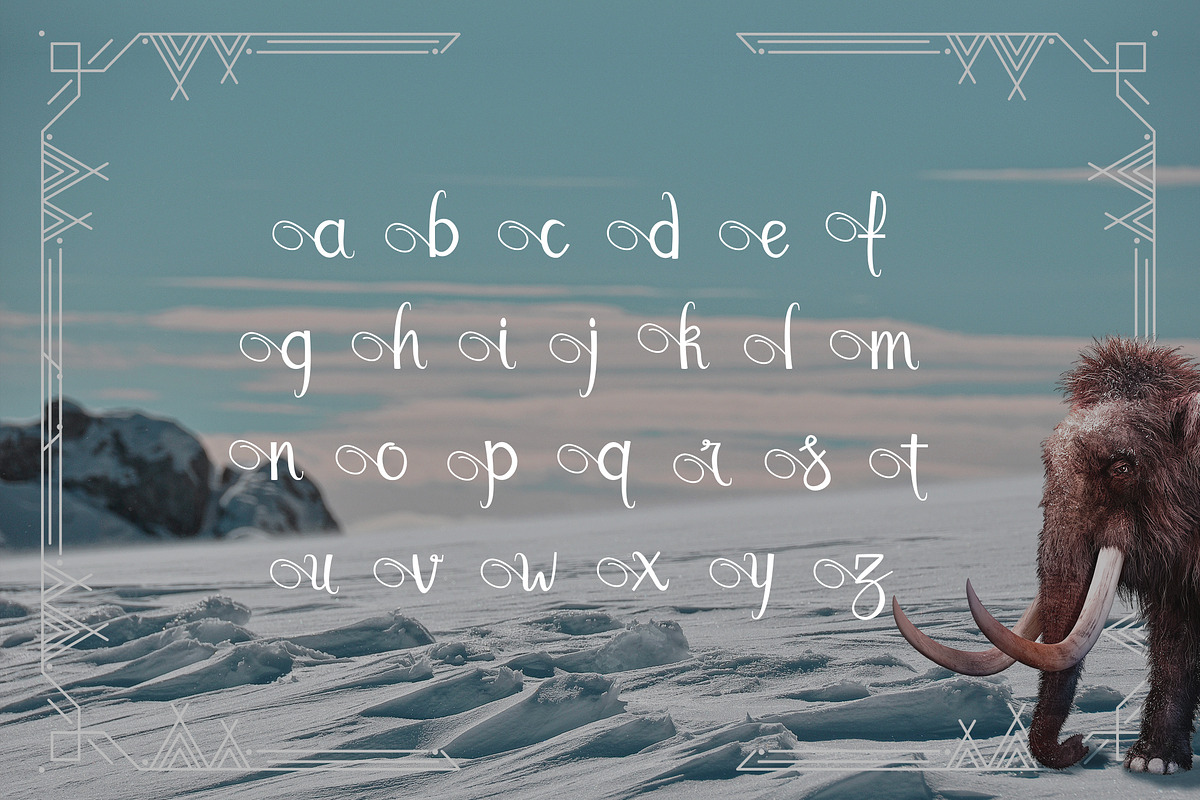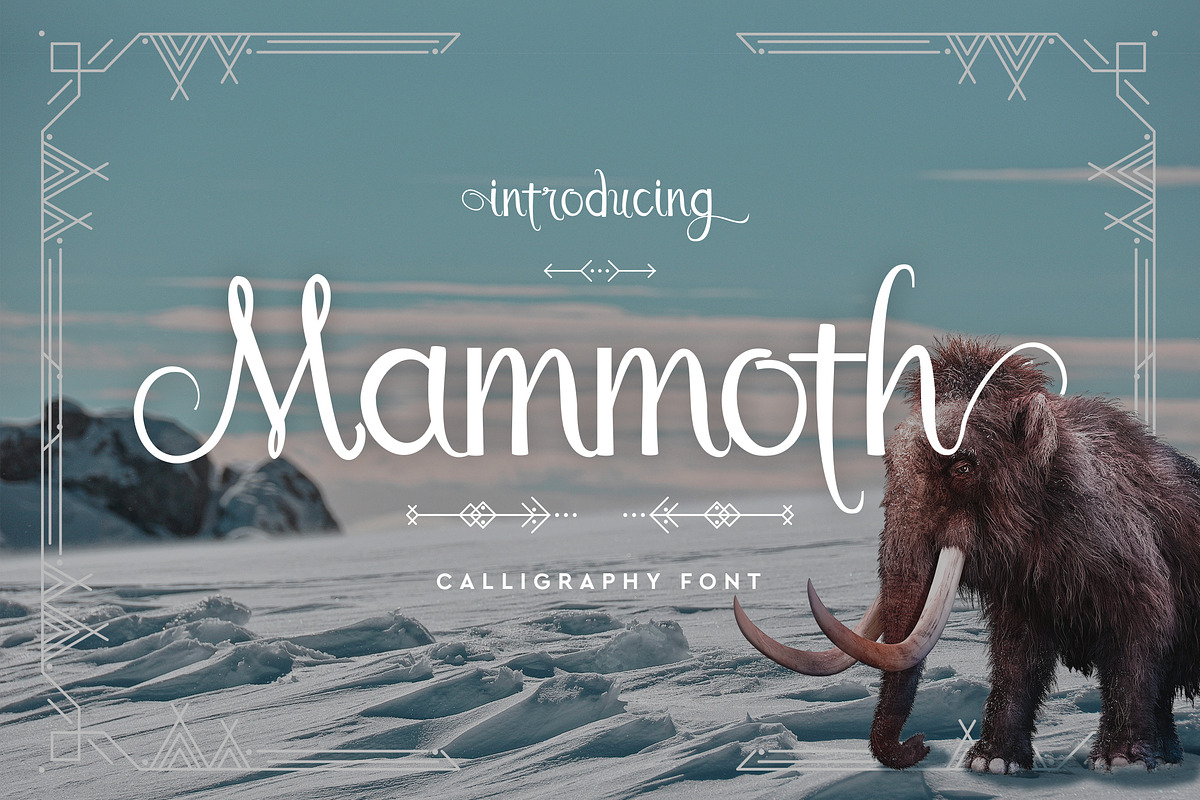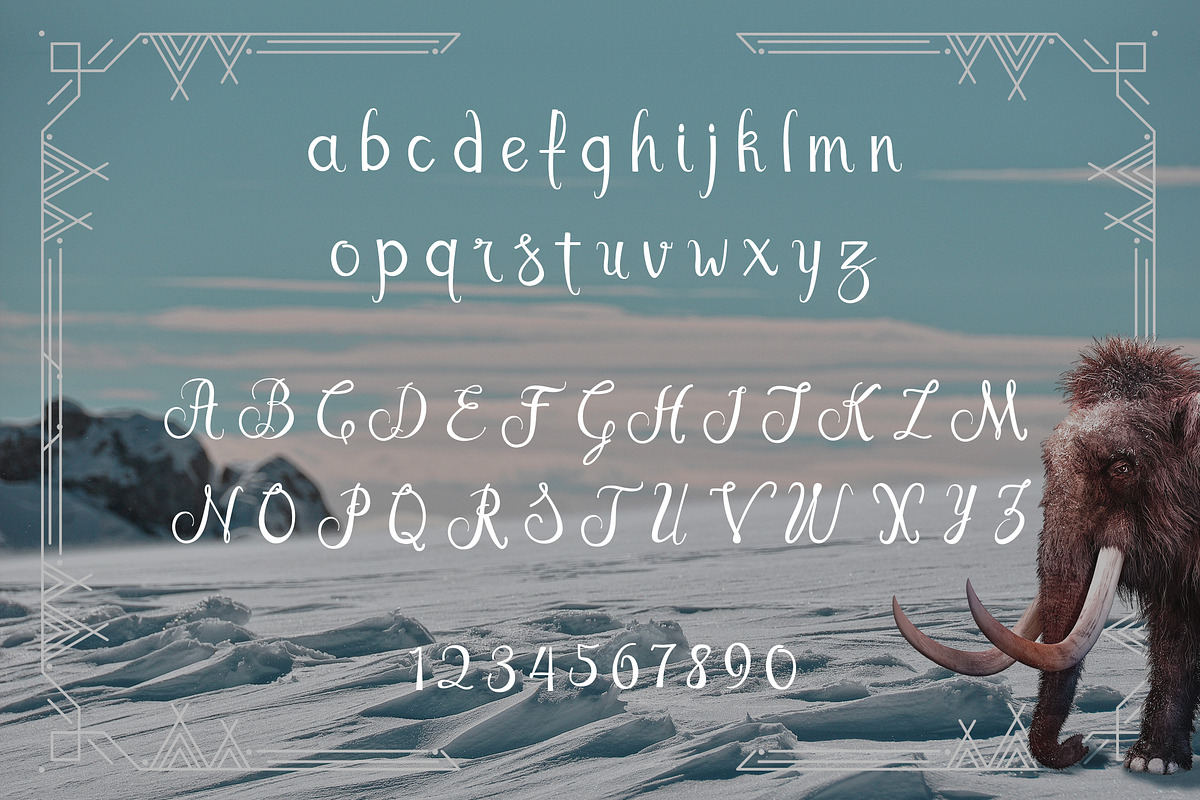
Mammoth
Mammoth by Font Bundles is a font selected for branding, posters, packaging, typography.
Why Mammoth is worth a look
Mammoth by Font Bundles fits naturally into Branding, posters, packaging, typography.